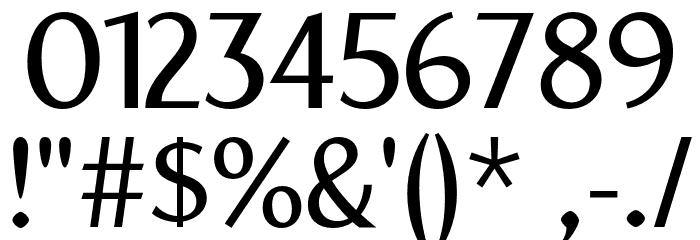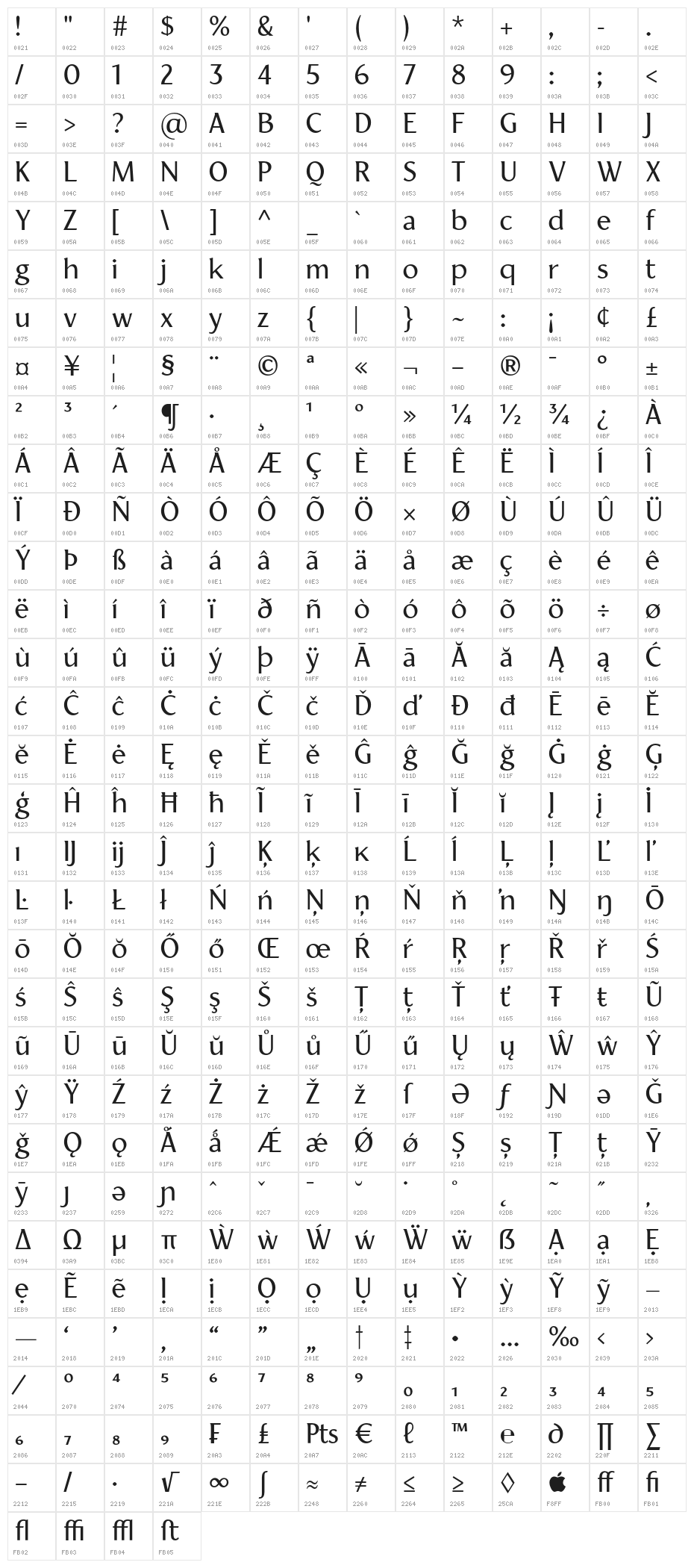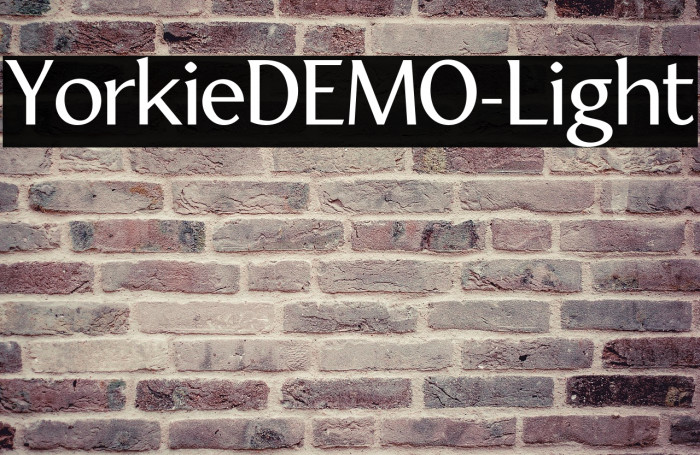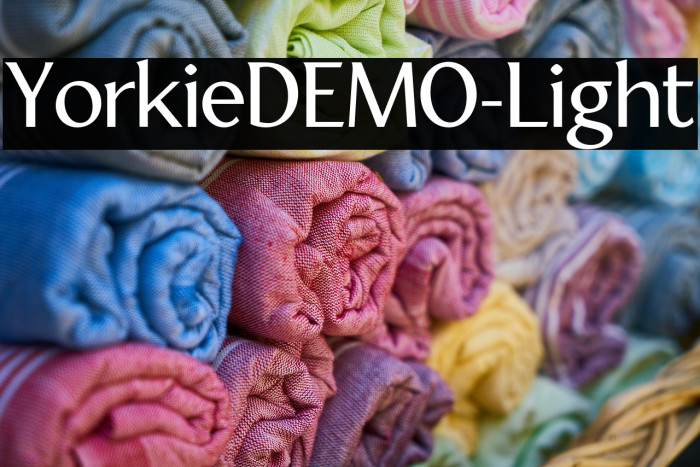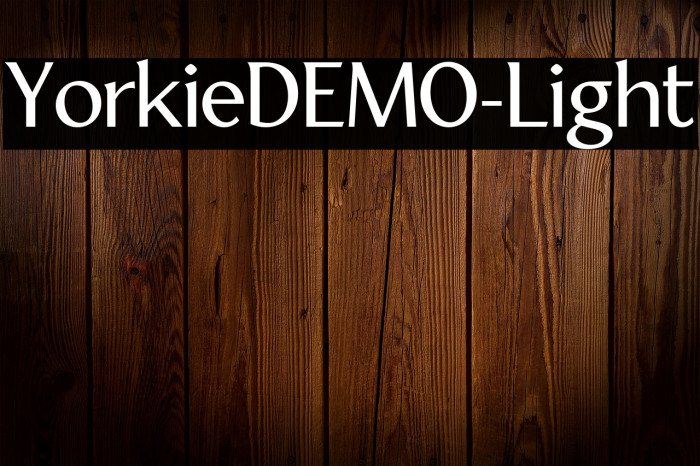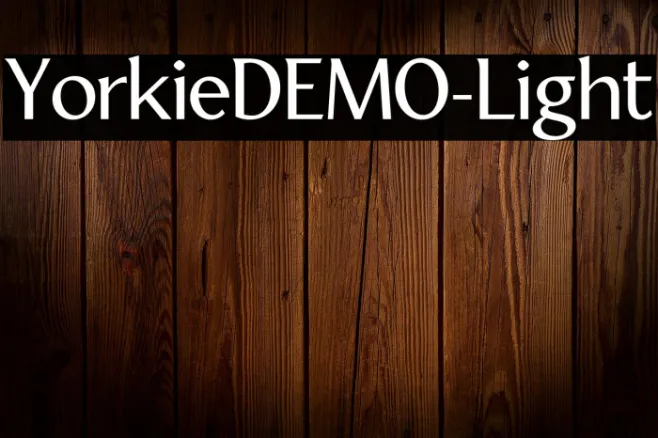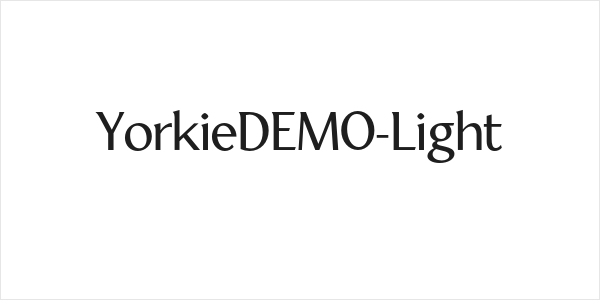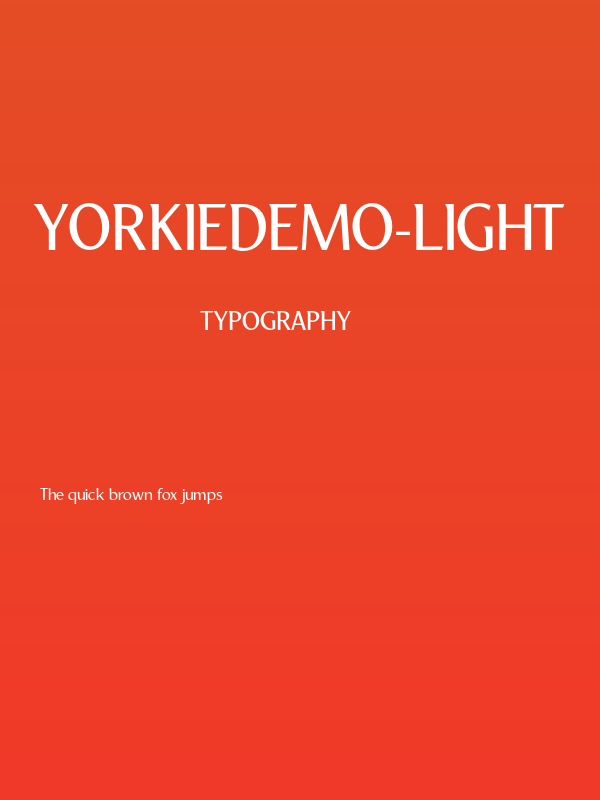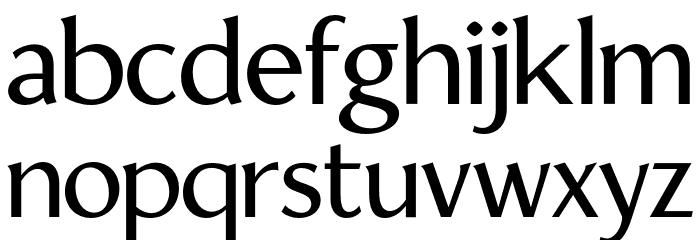
YorkieDEMO-Light Font
YorkieDEMO-Light Description
This font exhibits a modern and elegant design with a clean and sophisticated appearance. The characters are well-proportioned, featuring a harmonious balance between curves and straight lines. The uppercase letters are bold and commanding, while the lowercase letters maintain a smooth and approachable look. The numerals are clear and distinct, ensuring readability. Special characters are thoughtfully designed to complement the overall aesthetic. The font's light weight adds a touch of delicacy, making it suitable for a variety of design applications.